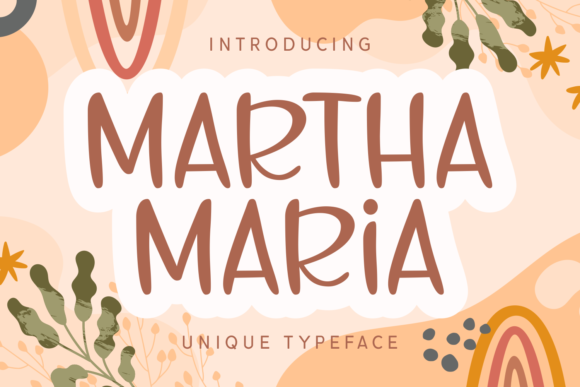
Behold, the Martha Maria Font: A Stroke of Brilliance for Your Creative Endeavors
In the realm of typography, where letters dance and words take flight, there exists a font that captivates hearts and ignites imaginations: Martha Maria, a stunning Sans Serif display font that will transform your creative projects into masterpieces. Its tall and slender characters, reminiscent of graceful dancers, infuse a touch of elegance and sophistication into every design.
With Martha Maria, you hold the key to unlocking a world of endless possibilities. Let your creativity soar as you craft captivating banners that demand attention, covers that intrigue and entice, posters that speak volumes, and quotes that resonate with profound emotion. Transform your t-shirts into walking works of art, infuse your sales materials with an air of exclusivity, and create art prints that captivate and inspire.
Step into the spotlight and let Martha Maria elevate your designs to new heights. Its versatility knows no bounds, adapting seamlessly to a myriad of applications. Whether you're a seasoned designer seeking to elevate your craft or a budding entrepreneur looking to make a lasting impression, Martha Maria is your steadfast companion, guiding you towards design excellence.
But Martha Maria is more than just a font; it's a gateway to a world of emotions. Its delicate strokes evoke a sense of nostalgia, whisking you back to simpler times when handwritten letters conveyed heartfelt messages. Its clean lines and modern aesthetic exude confidence and authority, empowering your words to command attention and leave an indelible mark.
So, dear creative soul, embrace the allure of Martha Maria and unlock the boundless potential within your designs. Let your imagination run wild and let this extraordinary font ignite the fire of your creativity. As you embark on this artistic journey, know that Martha Maria stands by your side, ready to transform your visions into tangible works of art that captivate and inspire.